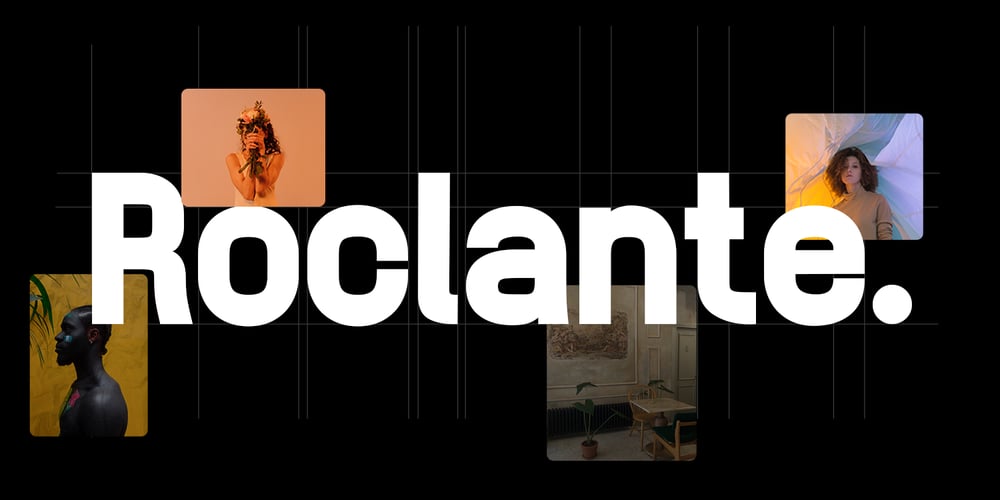
Roclante Display
Roclante Display font
Roclante Display Font Family was designed by Evin Tony and published by FoxType. Roclante Display contains 6 styles and family package options. Roclante Display is a Brand New Elegant Typeface with a powerful font family. It has a dependable and uncompromising style, with controlled letterforms and modern touches. It looks amazing in logos, magazines, and movies. Roclante Font would be perfect for branding, headlines, Captions, paragraph, and posters. The various weights allow you to experiment with a wide range of applications. It’s created to make an impression without sacrificing its beauty and readability. It’s shown a clean, minimalist, warmth, quirky, yet still purposed to be versatileThe Typeface includes Six Weights – UltraLight, Light, Normal, Medium, DemiBold, & Bold. All offer wide language support, upper and lower cases, numerals and extended punctuation.Thank you for taking the time to look into the font.